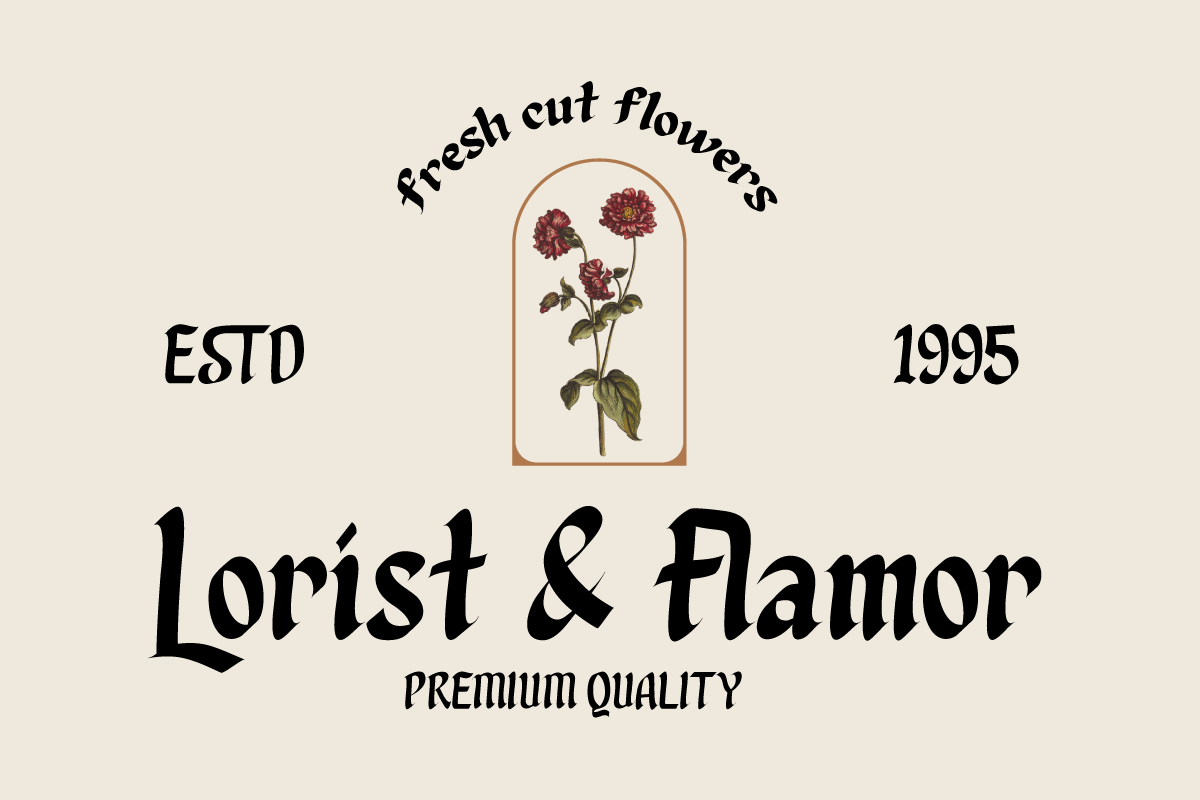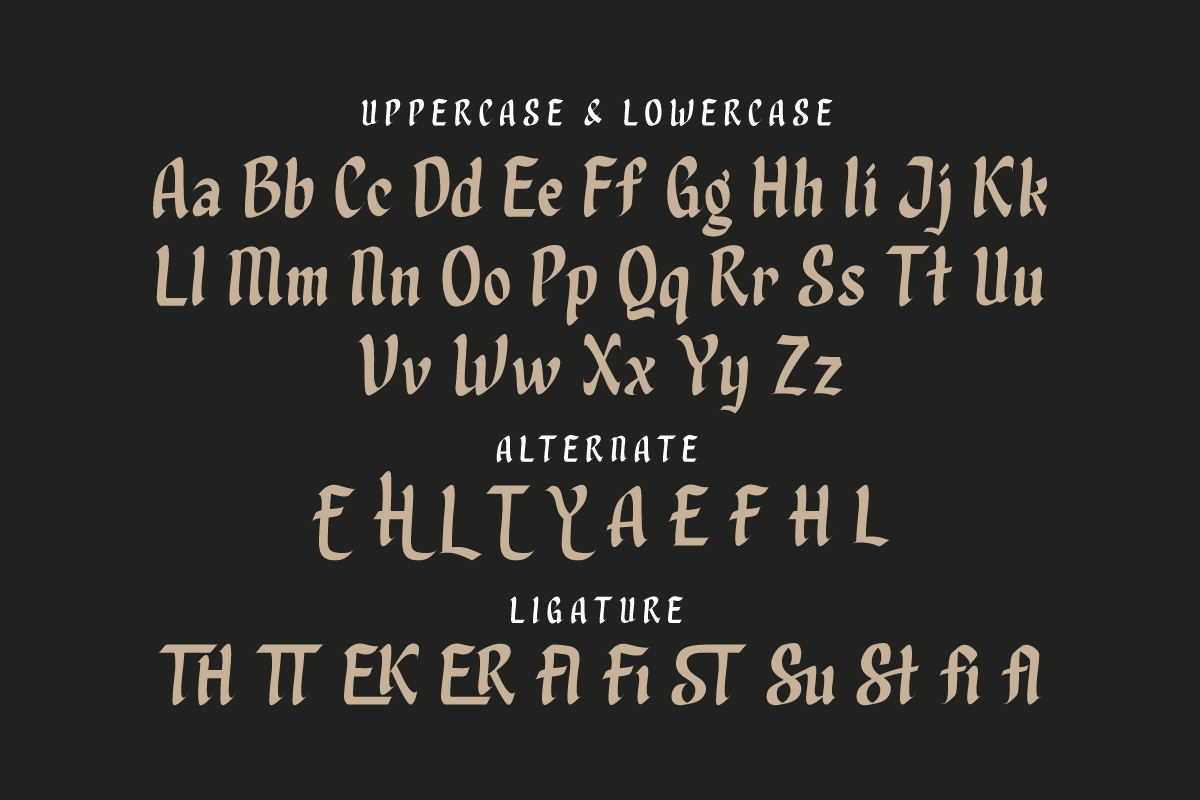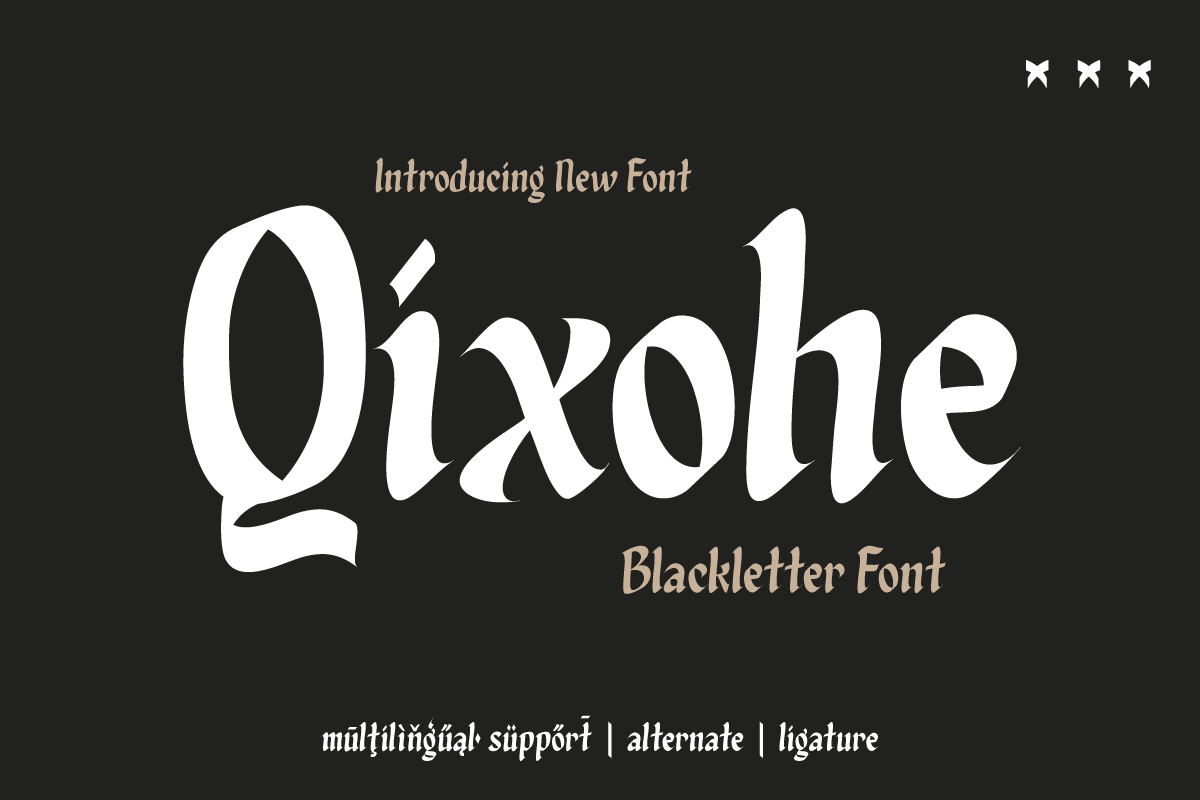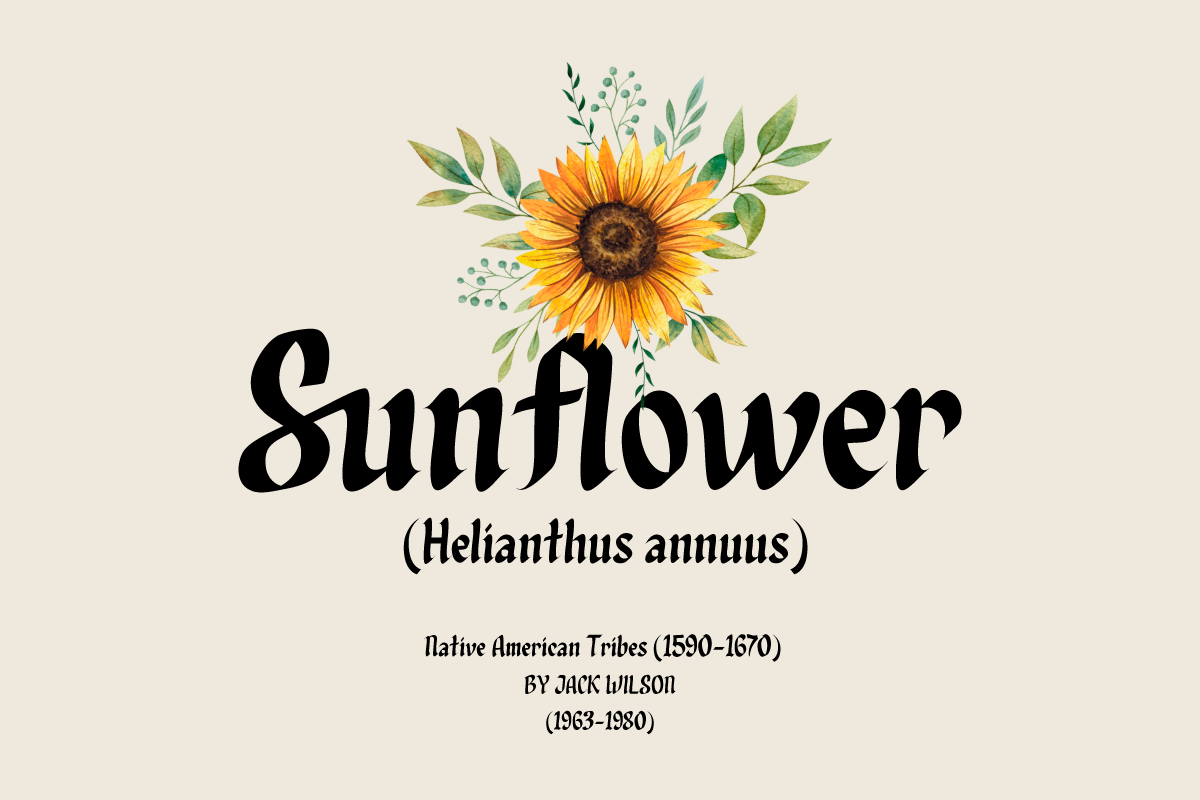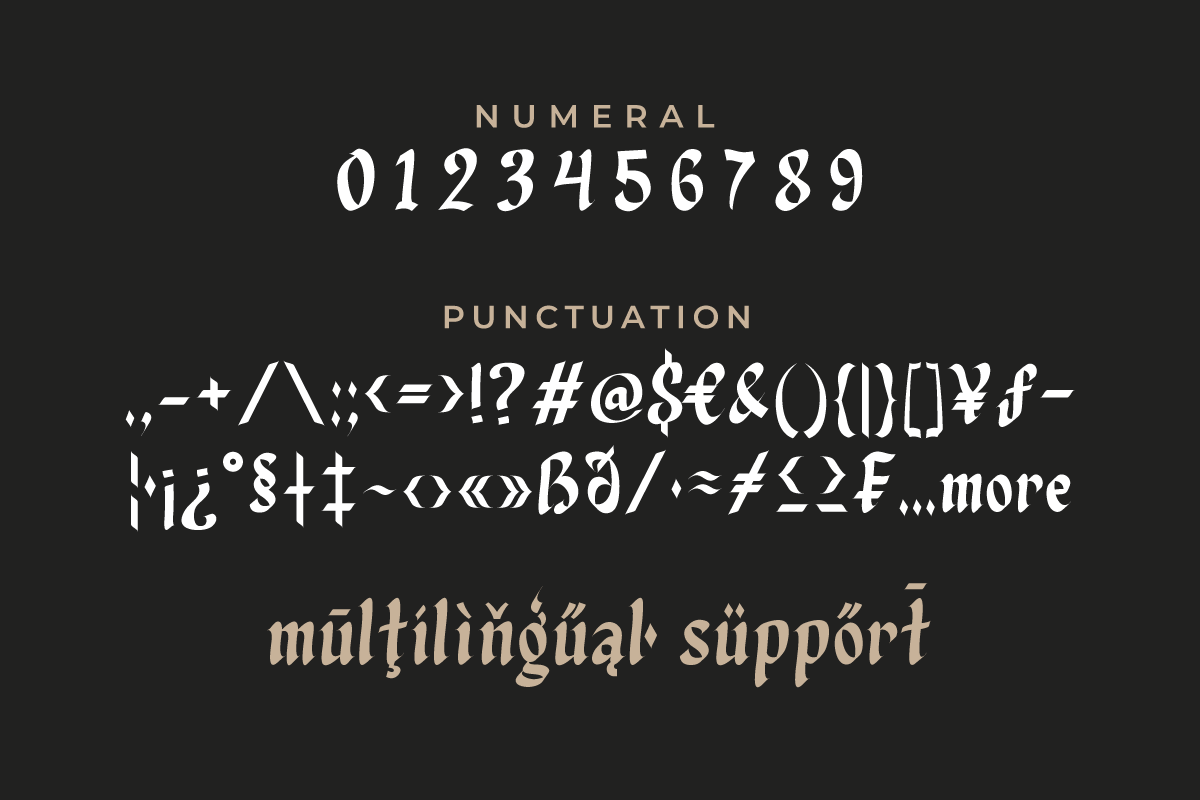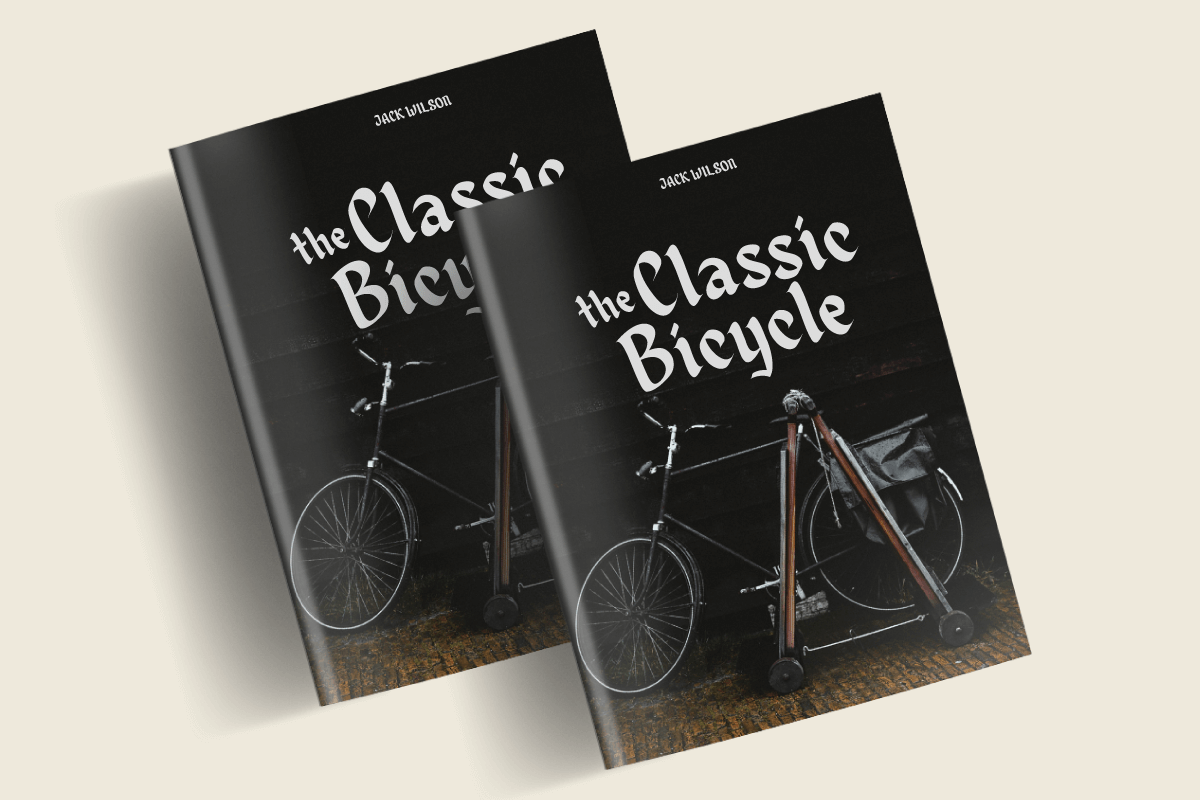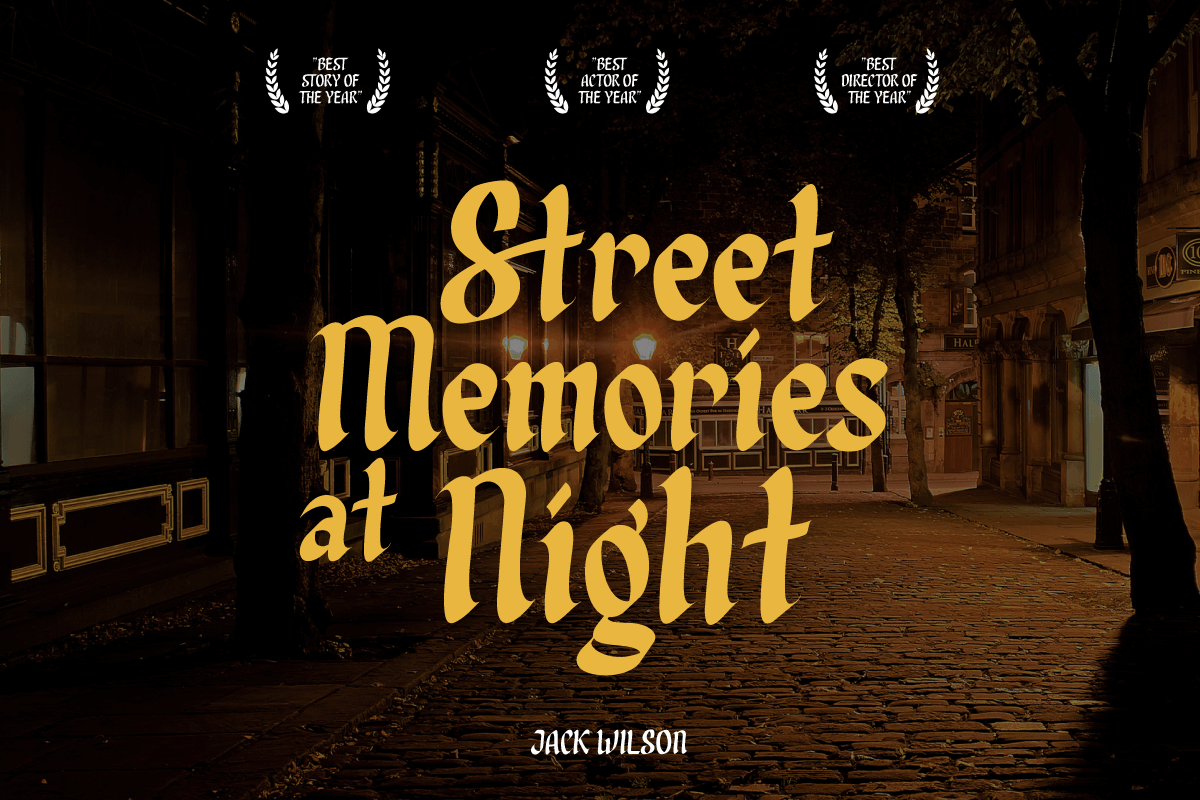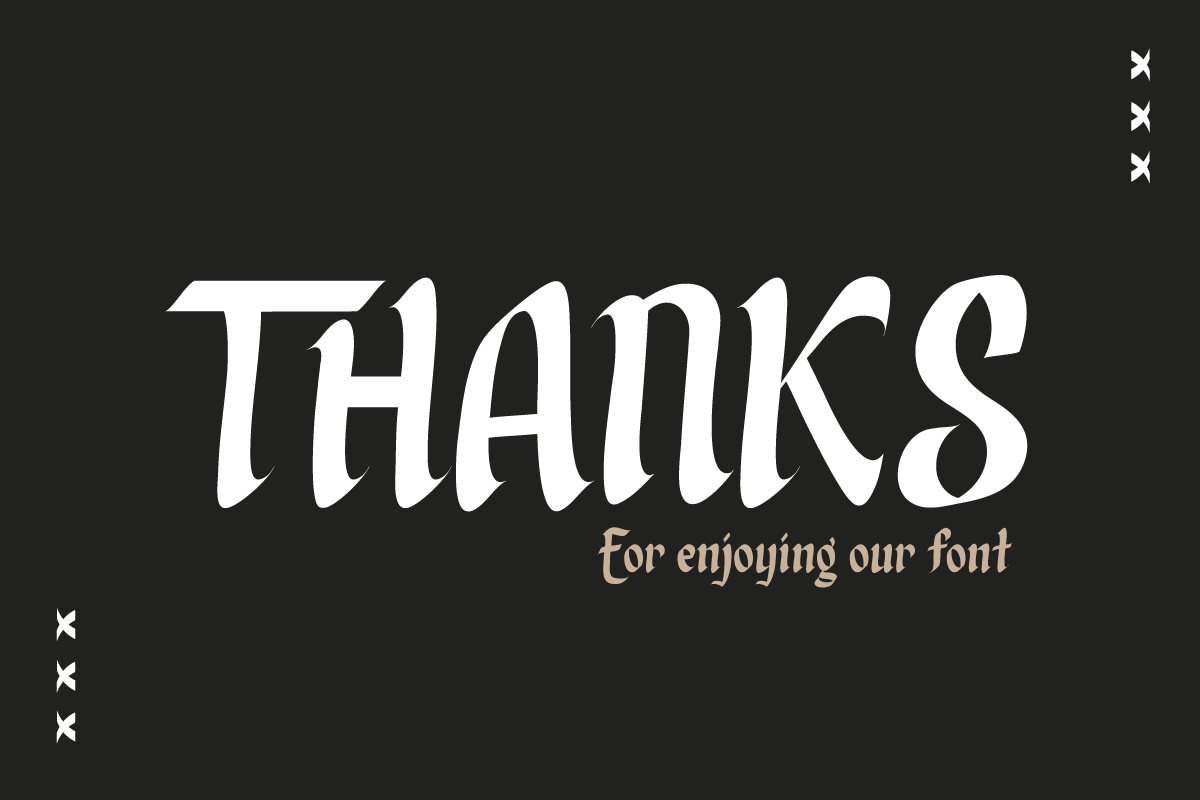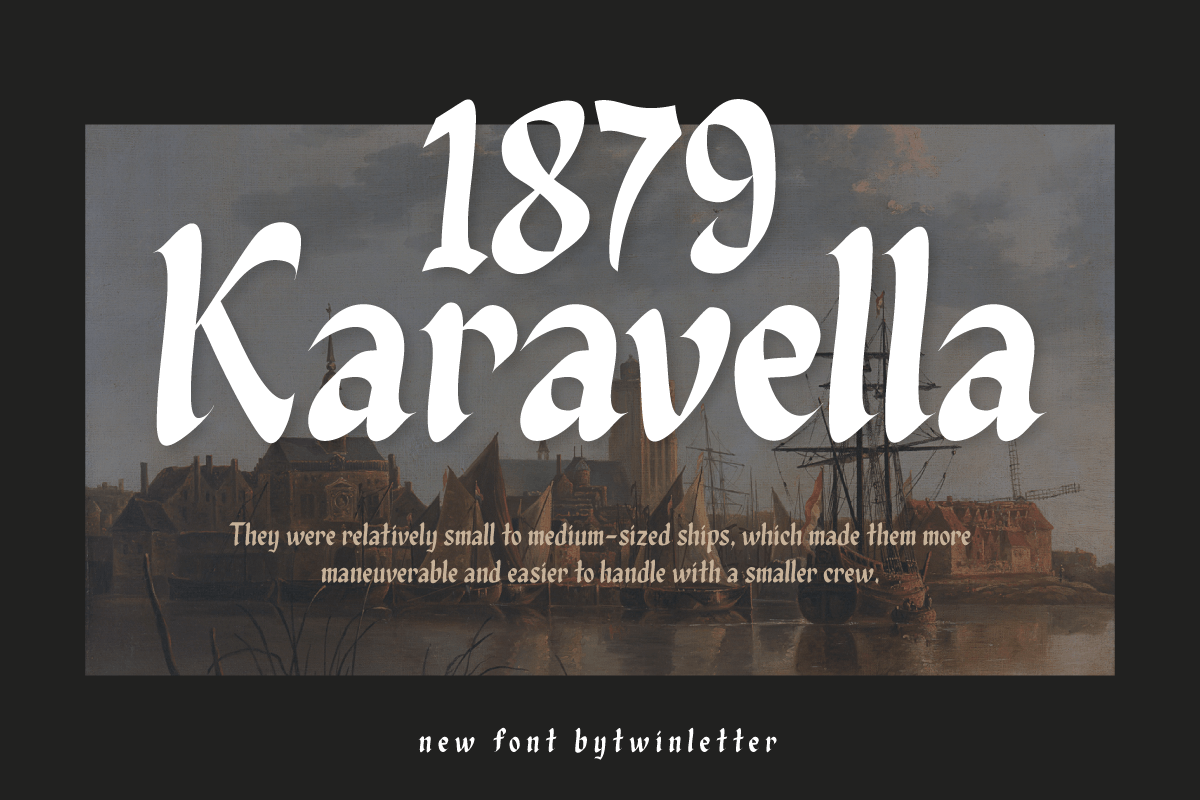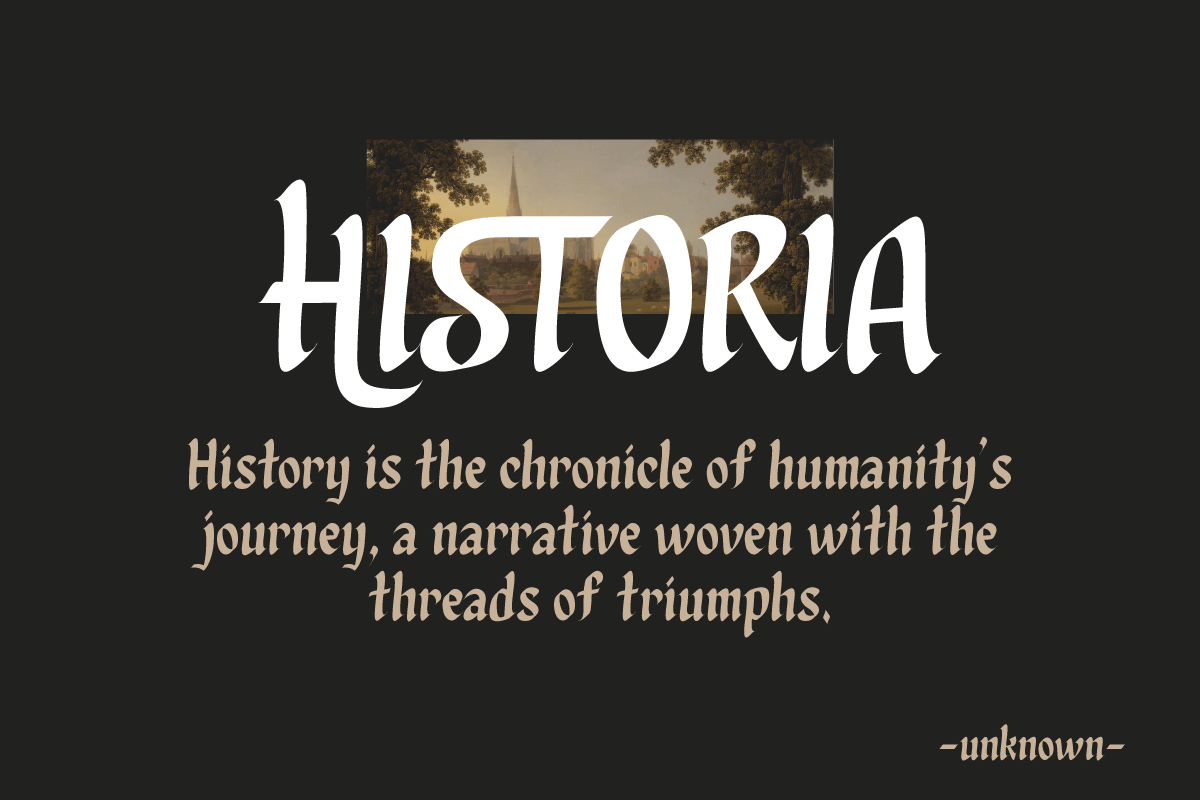
Qixohe - Blackletter Font
Qixohe is an elegant blend of tradition and modern style. With its strong Blackletter characters, this font brings an irreplaceable classic element to your projects. It's the perfect choice for creating striking titles, memorable logos, or memorable prints.
Qixohe's special features include alternative ligatures and characters that allow you to express your creativity to the fullest. With Qixohe, you can create a design like no other, one that will be remembered by all who see it.
Whether for graphic design, branding, or printmaking projects, Qixohe will provide the character and notoriety you're looking for. So, grab Qixohe now and give your designs an unforgettable bold and elegant touch.